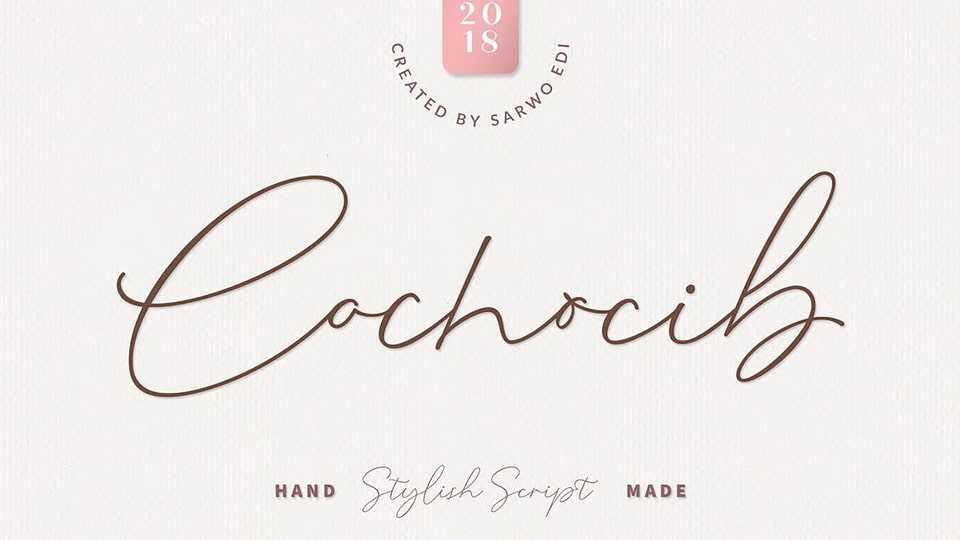
Download Cochocib Script font, where elegance meets charisma in every stroke. This exquisite typeface isn’t just a font; it’s a symphony of sophistication and natural charm.